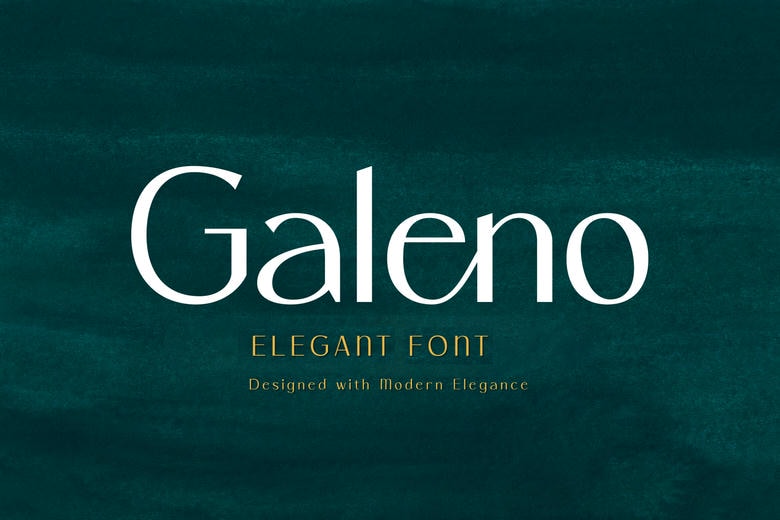
Galeno Font
Galeno is a new serif font that is clean and balanced. It has smooth curves, clear letterforms and well-proportioned spacing, which make it suitable for structured and refined typography needs.
The font has uppercase and lowercase letters, numerals and punctuation so that you can use the font consistently in print and digital layouts. Its character set is useful for diverse design applications, which do not depend on decorations.
Galeno is suitable for logos, restaurant identities, editorial layouts, branding systems, invitations, signage and web typography. The font has readability at different sizes while retaining a composed and elegant look.
Designed for designers who need a serif typeface that has a modern tone to it, Galeno supports clear communication and visually organized layouts.
Galeno Serif Font